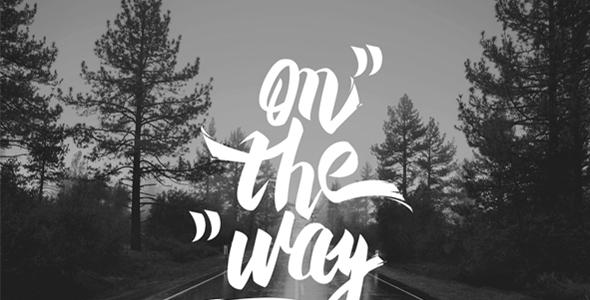
Deadaluss Typeface
Introducing my new streetart style font called “Deadalus” Deadalus is a handmade lettering with streetart feel inside.. Suitable and perfect for : Tshirt Design, Personal Branding, Logo, illustrations. Bonus Ornament Tutorial : a – h without caps, you can resize and add it to the type. Thankyou so much, Happy designing!.